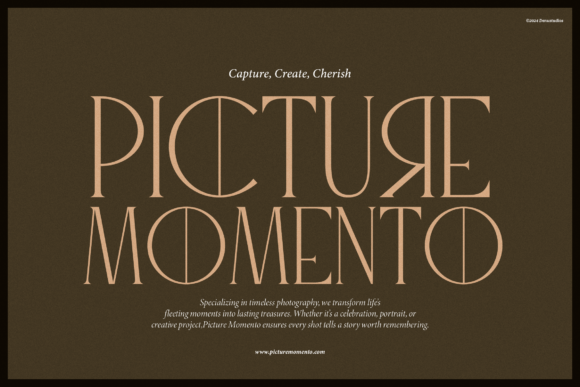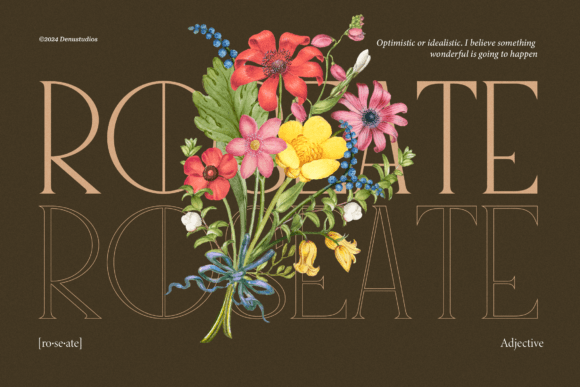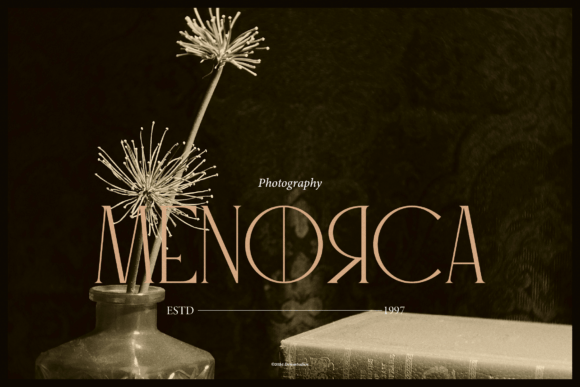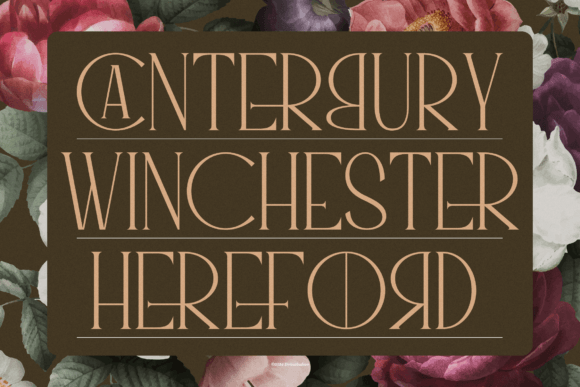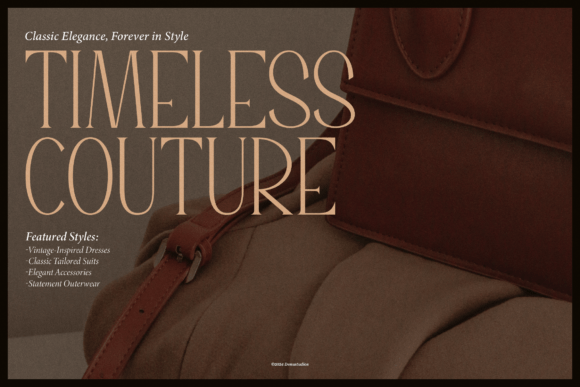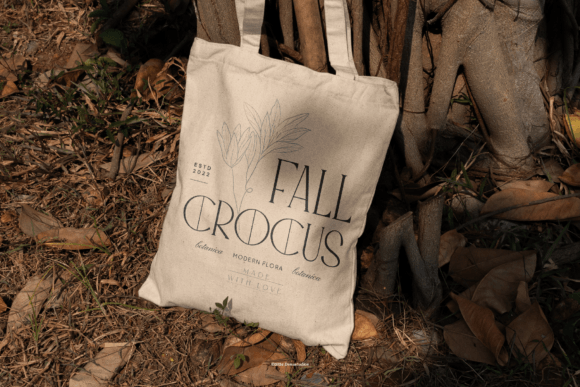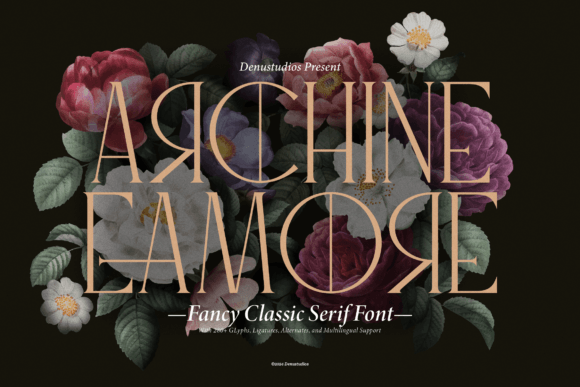
Elevate Your Designs with the Timeless Elegance of Archine Eamore Font
In the world of typography, few fonts manage to convey the essence of luxury, sophistication, and timeless elegance as effectively as Archine Eamore. This classic serif font is a masterpiece of design, boasting a vintage-inspired style that exudes charm and refinement. With its graceful curves, extensive character set, and versatile features, Archine Eamore is the perfect choice for designers and crafters looking to add a touch of elegance to their projects.
A Font of Unparalleled Versatility
Archine Eamore is more than just a font – it’s a comprehensive design tool that offers a wide range of possibilities. Featuring over 280 glyphs, this font includes an array of ligatures, alternates, and multilingual support, making it an incredibly versatile asset for any designer. Whether you’re working on luxury branding, wedding invitations, editorial designs, or any other project that demands a high level of sophistication, Archine Eamore is the perfect choice.
Timeless Elegance for Luxury Branding
Luxury branding requires a font that can convey a sense of exclusivity, high-end quality, and refinement. Archine Eamore delivers on all fronts, with its classic serif design and elegant curves evoking a sense of timeless sophistication. This font is perfect for creating logos, packaging, and marketing materials that demand a high level of luxury and refinement. With Archine Eamore, you can create a cohesive brand identity that exudes elegance and poise.
Perfect for Wedding Invitations and Editorial Designs
Wedding invitations and editorial designs require a font that can add a touch of romance, elegance, and sophistication. Archine Eamore is the perfect choice for these applications, with its vintage-inspired style and graceful curves creating a sense of nostalgia and refinement. Whether you’re designing a wedding invitation, a magazine, or a book, Archine Eamore is the perfect font to add a touch of elegance and sophistication to your project.
Key Features of Archine Eamore Font
- Over 280 glyphs: A comprehensive character set that includes a wide range of letters, numbers, and symbols.
- Ligatures and alternates: Add a touch of elegance to your designs with ligatures and alternates that create a sense of flow and continuity.
- Multilingual support: Communicate with your audience in multiple languages, with support for a wide range of languages.
- Vintage-inspired style: A classic serif design that exudes elegance, sophistication, and refinement.
- Extensive language support: Support for multiple languages, making it perfect for global brands and international designs.
Why Choose Archine Eamore Font?
With so many fonts available, why choose Archine Eamore? Here are just a few reasons why this font stands out from the crowd:
- Unique and distinctive design: Archine Eamore boasts a unique and distinctive design that sets it apart from other serif fonts.
- Highly versatile: With its extensive character set and versatile features, Archine Eamore can be used for a wide range of design applications.
- Elegant and sophisticated: This font exudes elegance and sophistication, making it perfect for luxury branding, wedding invitations, and editorial designs.
- Easy to read: Despite its elegant design, Archine Eamore is highly legible, making it perfect for body text and other applications where readability is key.
In conclusion, Archine Eamore is a truly exceptional font that offers a unique combination of elegance, sophistication, and versatility. With its classic serif design, extensive character set, and versatile features, this font is perfect for designers and crafters looking to add a touch of refinement to their projects. Whether you’re working on luxury branding, wedding invitations, editorial designs, or any other project that demands a high level of sophistication, Archine Eamore is the perfect choice.